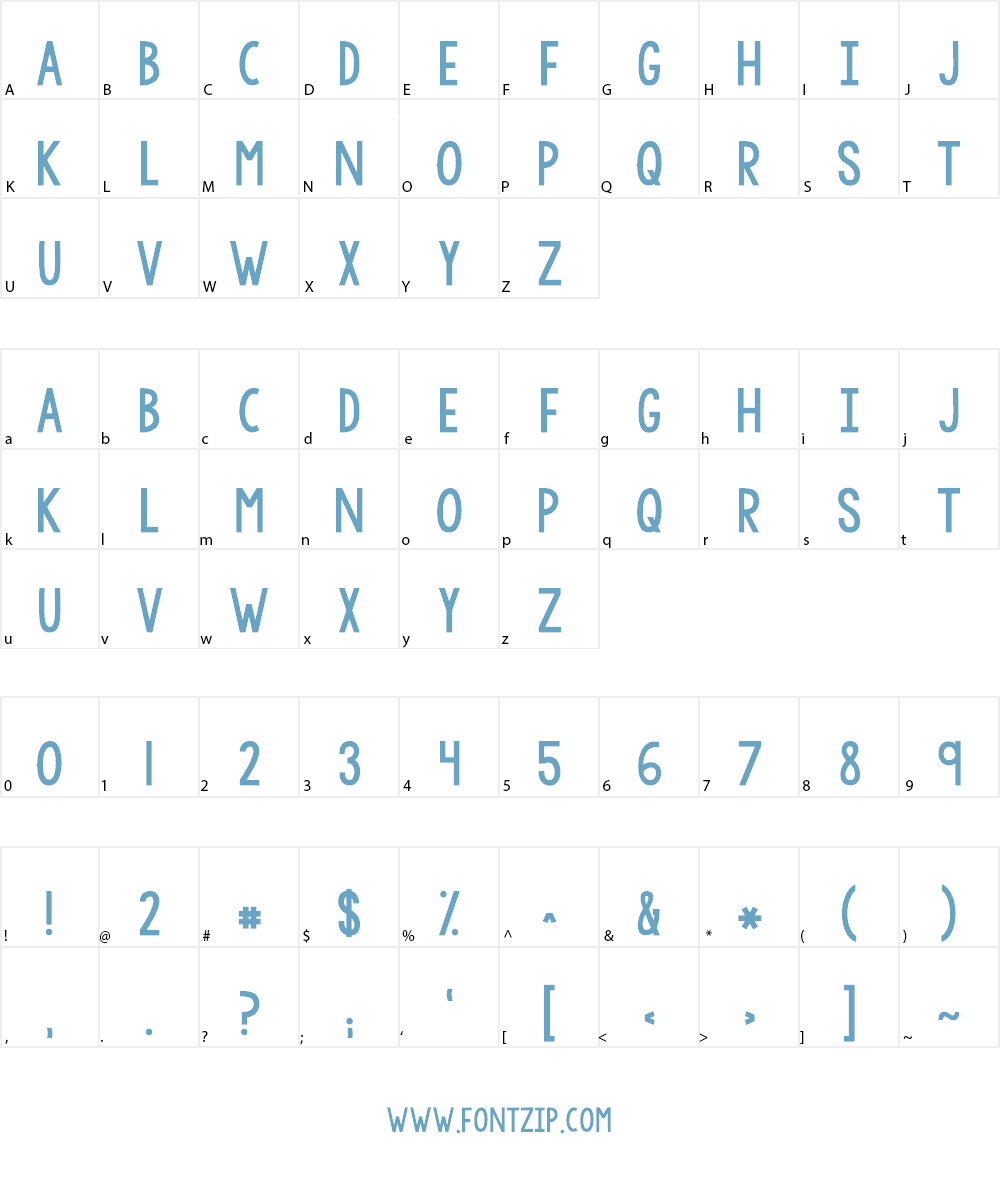
Free for personal use. Please pay for commercial use. Use ALL CAPITAL LETTERS for standard flat lettering. Use AlTeRnAtInG capital and lowercase letters for bouncy titles.